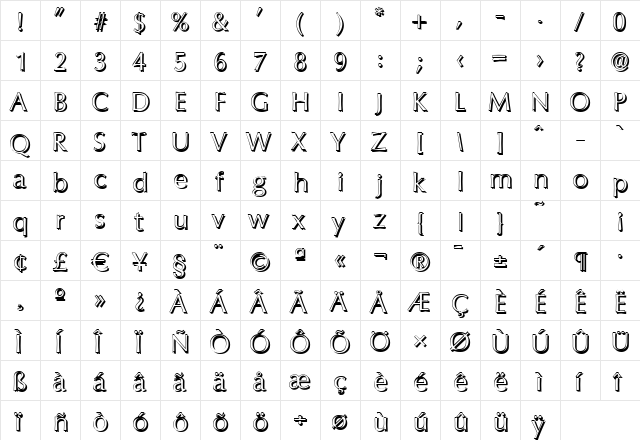
EricBeckerShadow-Light Normal
Design Context for EricBeckerShadow-Light Typeface
EricBeckerShadow-Light is built around its visual character rather than neutral utility — its distinctive forms are designed to make an impression at display sizes. Its slender proportions lend an understated elegance to any composition.
Font Pairing: Pair with a clean neutral sans-serif for body copy to let EricBeckerShadow-Light's character lead without overwhelming the composition.
Pro Tip: Treat EricBeckerShadow-Light as the centrepiece of your typographic hierarchy. One strong heading set in a decorative face can carry an entire layout.